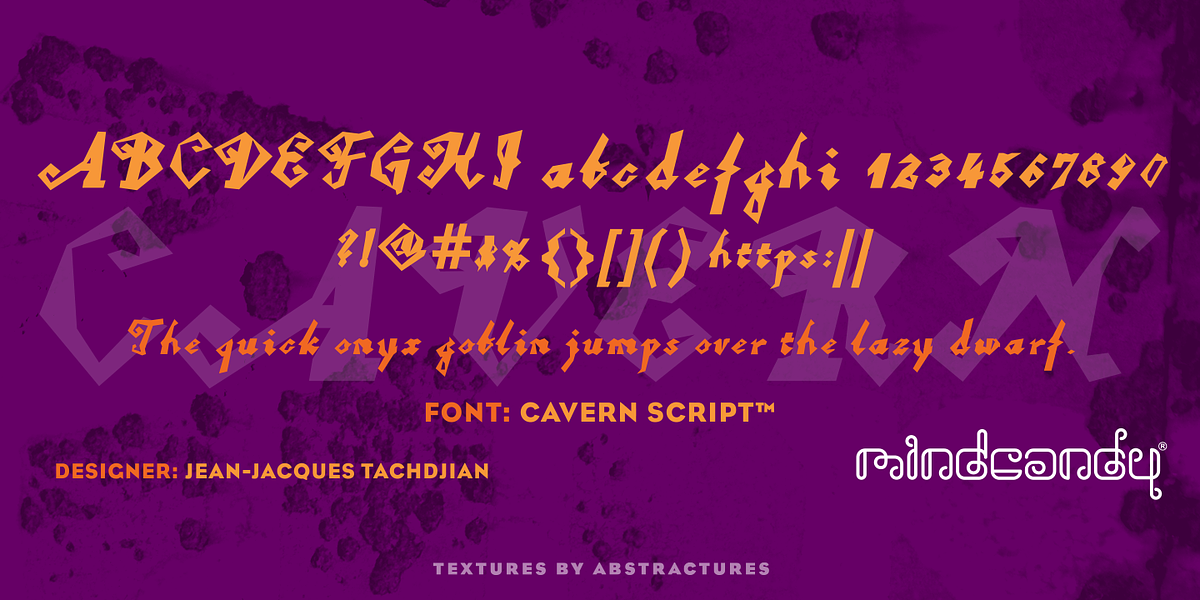
Cavern Script™
This font is a novelty display typeface with a distinct angular design. Its historical inspiration lends it a unique charm and makes it suitable for eye-catching headlines and display text.